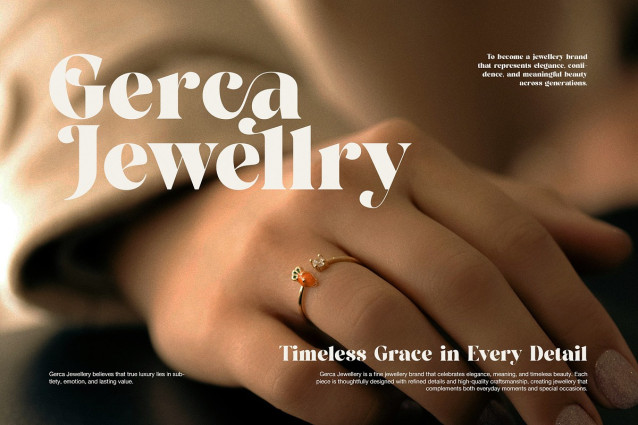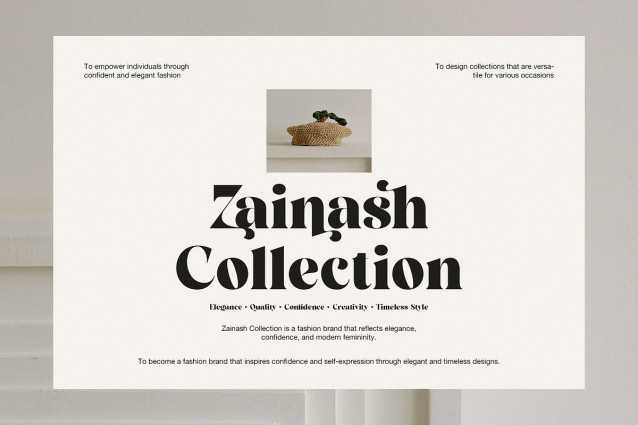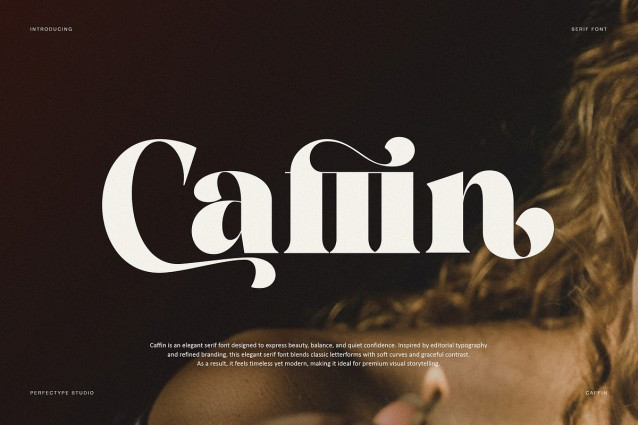
Caffin Font
Caffin Font is an elegant serif font designed to express beauty, balance, and quiet confidence. Inspired by editorial typography and refined branding, this elegant serif font blends classic letterforms with soft curves and graceful contrast. As a result, it feels timeless yet modern, making it ideal for premium visual storytelling.
From the first glance, Caffin delivers a sense of calm sophistication. Each letter is carefully shaped to create harmony between thick and thin strokes. Moreover, the gentle terminals and refined details add warmth without losing clarity. Because of this balance, the font works beautifully in both large headlines and supporting text.